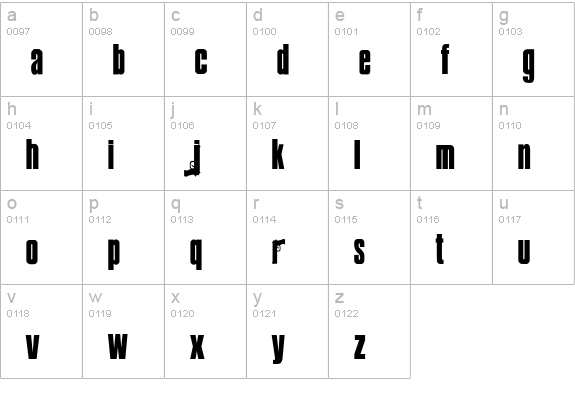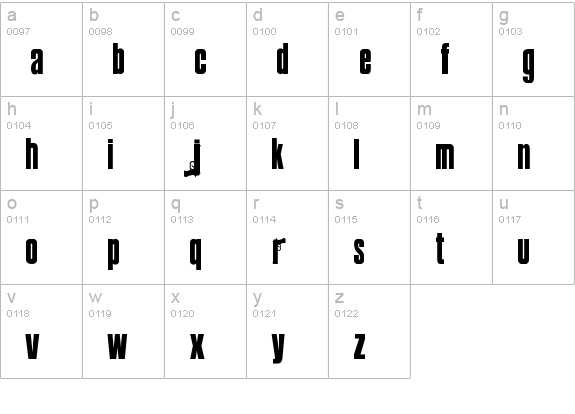
Introducing Mobsters font, a bold and stylish typeface that exudes a sense of power and sophistication. With its sharp angles and sleek lines, Mobsters font is perfect for conveying a sense of mystery and intrigue. Whether you're designing a poster for a film noir-inspired event or creating a logo for a sleek and modern brand, Mobsters font is sure to make a statement. Best of all, Mobsters font is completely free to download at FontsMarket.com. So go ahead and add this sleek and stylish typeface to your font collection today, and take your designs to the next level with the sophistication of Mobsters font.